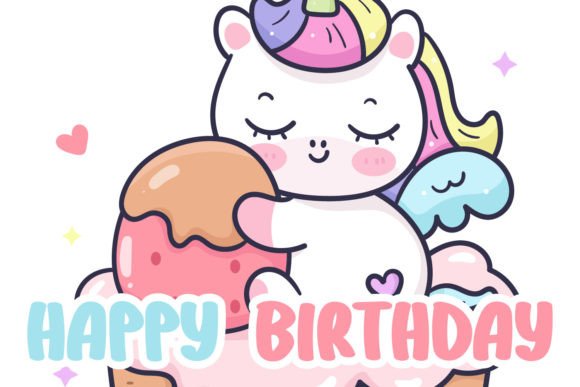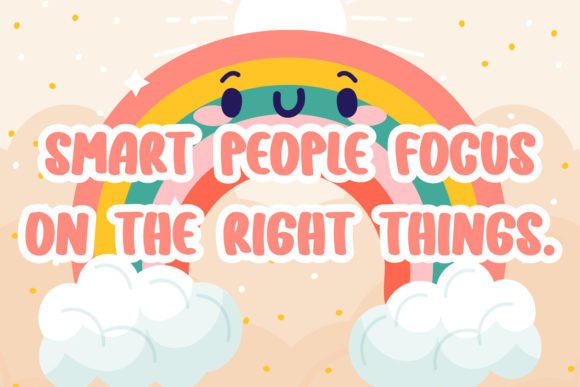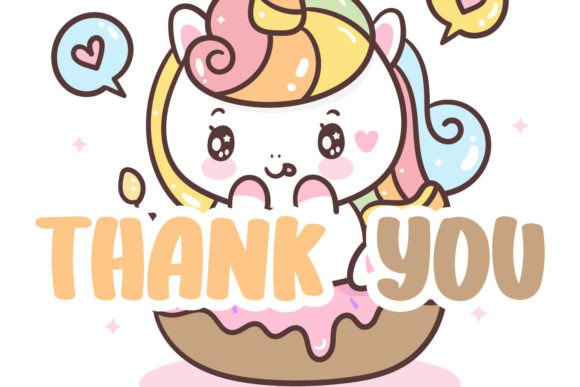
Introducing Bold Rainbow Font: The Ultimate Choice for Fun and Playful Designs
Are you looking for a font that can add a pop of color and fun to your designs? Look no further than the Bold Rainbow Font! This brilliant display font is perfect for children-themed designs, and its versatility makes it suitable for a wide range of projects. In this article, we’ll explore the features and benefits of Bold Rainbow Font, and show you how to make the most of this amazing font.
What is Bold Rainbow Font?
Bold Rainbow Font is a vibrant and playful display font that’s designed to make your designs stand out. Its bold and colorful letters are perfect for creating eye-catching headlines, titles, and quotes that are sure to grab attention. The font’s fun and cute style makes it an ideal choice for children-themed designs, such as kids’ party invitations, children’s books, and educational materials.
Key Features of Bold Rainbow Font
- Brilliant and colorful: The font features a stunning rainbow color scheme that’s sure to add a pop of color to your designs.
- Bold and playful: The font’s bold style makes it perfect for creating eye-catching headlines and titles.
- Cute and fun: The font’s playful style makes it suitable for children-themed designs and projects.
- Highly versatile: The font can be used for a wide range of projects, from logos and quotes to T-shirts and greeting cards.
How to Use Bold Rainbow Font
Bold Rainbow Font is easy to use and can be incorporated into a variety of design projects. Here are some ideas to get you started:
- Logos: Use Bold Rainbow Font to create a colorful and eye-catching logo for your business or brand.
- Quotes: Add a pop of color to your quotes and sayings with Bold Rainbow Font.
- T-shirts: Create fun and playful T-shirt designs using Bold Rainbow Font.
- Greeting cards: Use Bold Rainbow Font to create colorful and festive greeting cards for special occasions.
- Business cards: Add a touch of fun and personality to your business cards with Bold Rainbow Font.
Benefits of Using Bold Rainbow Font
Using Bold Rainbow Font can bring a range of benefits to your designs, including:
- Increased visibility: The font’s bold and colorful style makes it perfect for grabbing attention and standing out.
- Emotional connection: The font’s fun and playful style can help create an emotional connection with your audience, especially children.
- Versatility: The font can be used for a wide range of projects, making it a great addition to your design toolkit.
Tips for Getting the Most out of Bold Rainbow Font
Here are some tips for getting the most out of Bold Rainbow Font:
- Experiment with colors: While the font comes in a standard rainbow color scheme, feel free to experiment with different colors to match your brand or design.
- Use it sparingly: While Bold Rainbow Font is perfect for headlines and titles, use it sparingly to avoid overwhelming your design.
- Pair it with other fonts: Experiment with pairing Bold Rainbow Font with other fonts to create a unique and interesting design.
Bold Rainbow Font is a brilliant and fun display font that’s perfect for children-themed designs and projects. Its bold and colorful style makes it perfect for grabbing attention, while its versatility makes it suitable for a wide range of design projects. With its ease of use and range of benefits, Bold Rainbow Font is a great addition to any design toolkit.